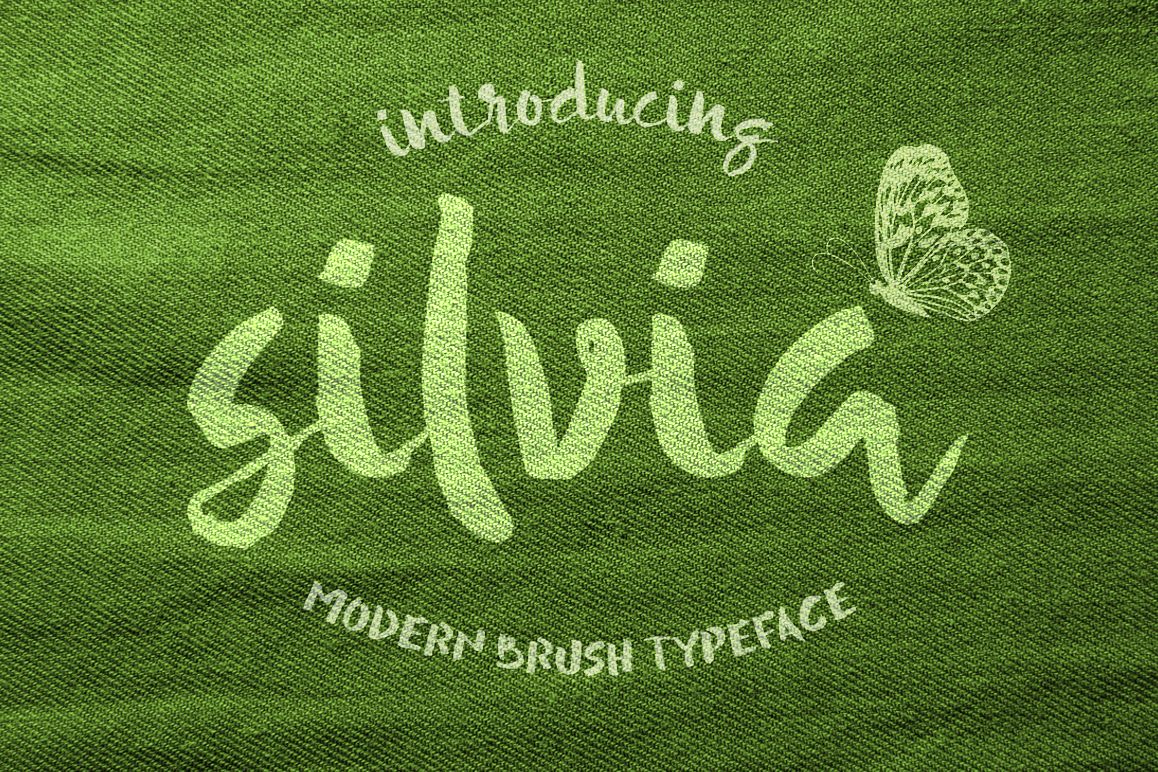
Silvia
greeting from silvia.
silvia is a handlettered typeface made with love, inspired by charming people, nice places and delicious food. silvia is kind of thanks for all the good things in the world. silvia is a thick typeface really suit for your branding logo, t-shirt, banner, logo design, wedding invitation, and all kind of your typography stuff